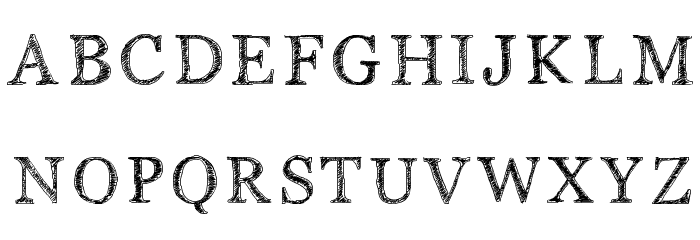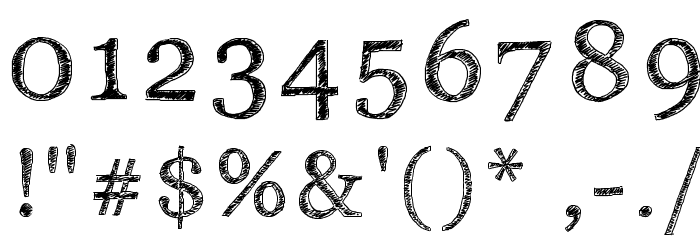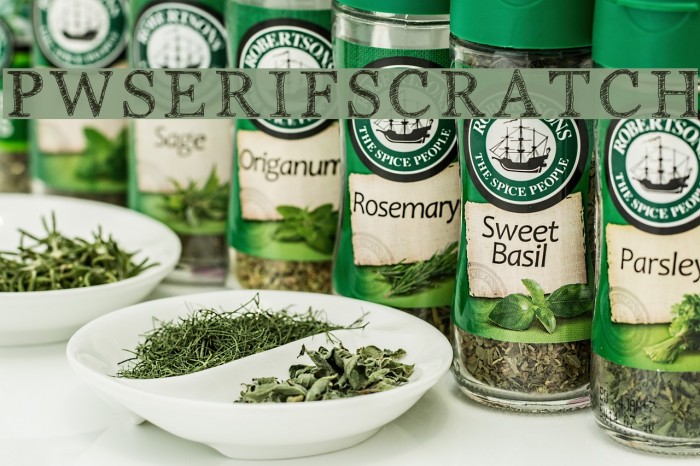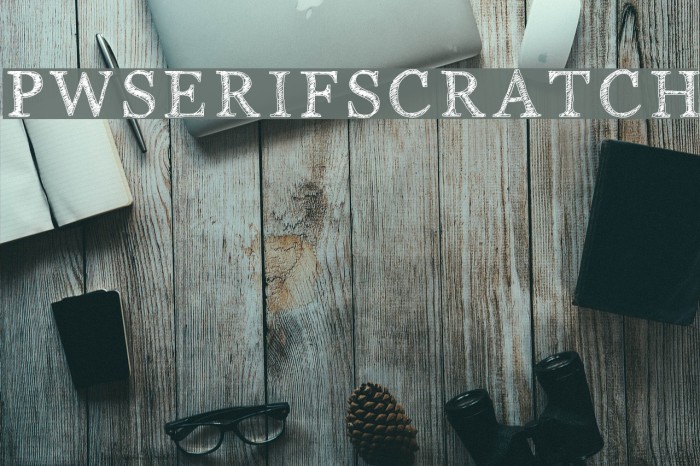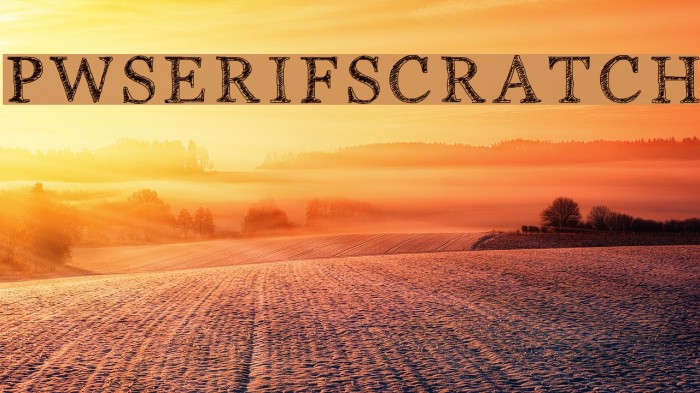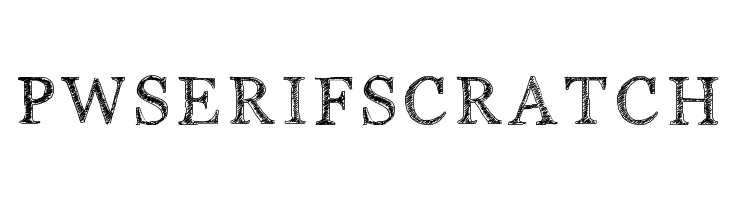
PWSerifScratch Font
This font features a distinctive, hand-drawn aesthetic with a textured, scratchy appearance that adds a unique, artistic flair to each character. The serif style is evident in the small lines attached to the ends of the strokes, giving it a classic yet creative look. The uppercase and lowercase letters maintain a consistent style, with the texture providing a sense of depth and character. Numbers and special characters are equally detailed, ensuring a cohesive design throughout. This font's artistic quality makes it stand out, suitable for projects that require a touch of creativity and individuality.
A hand-drawn serif font with a textured, scratchy appearance.
- Proposed Projects: Ideal for artistic projects, creative branding, posters, and invitations where a unique, handcrafted look is desired.